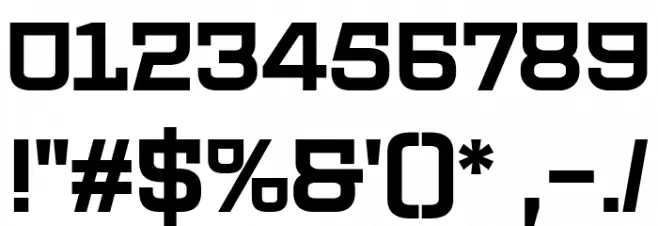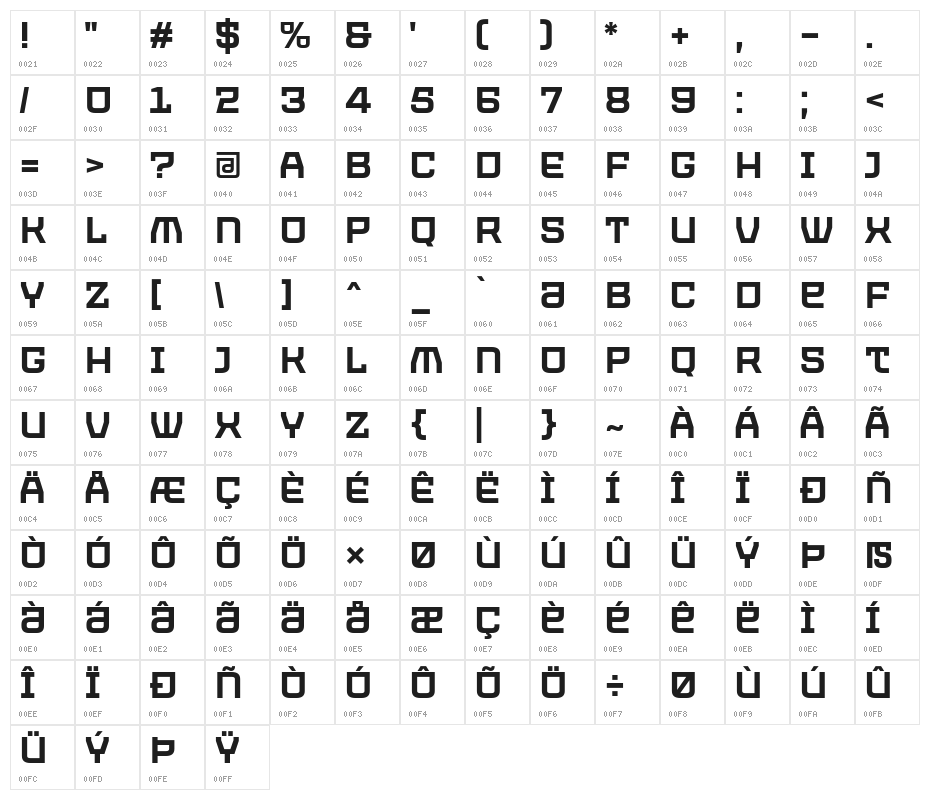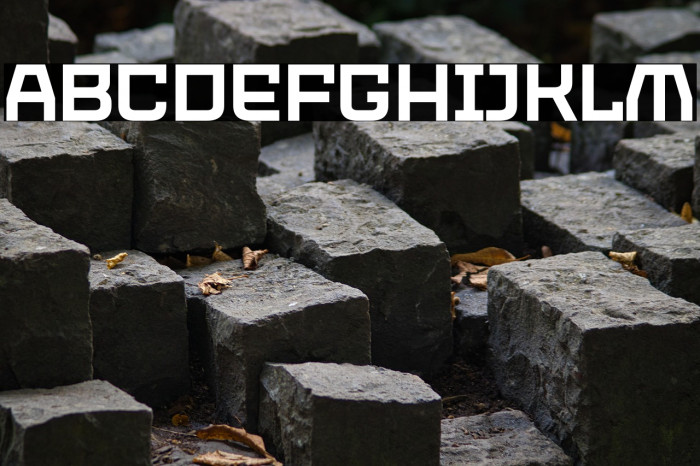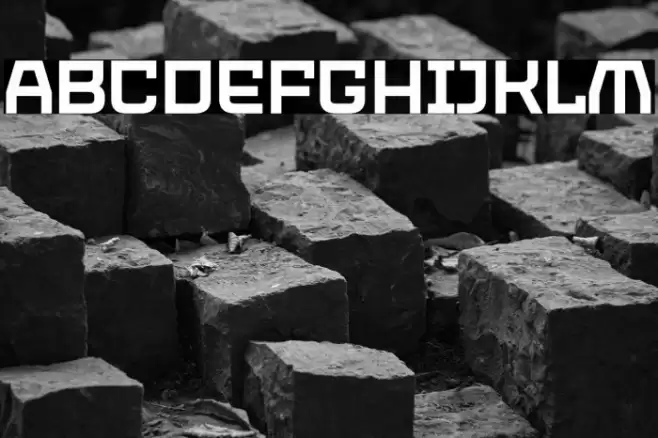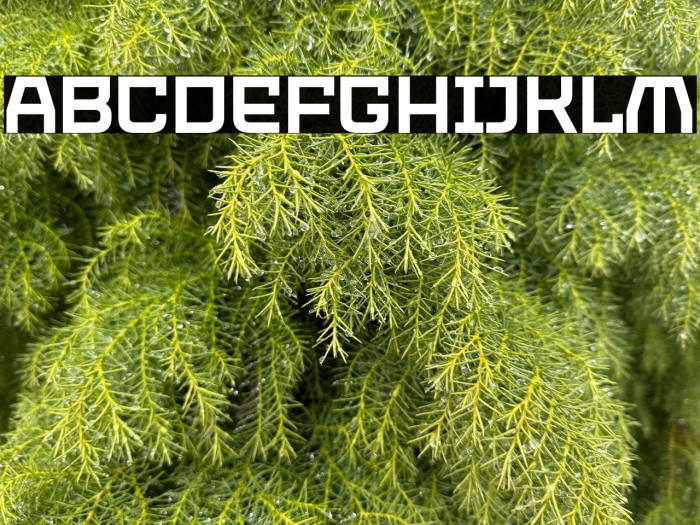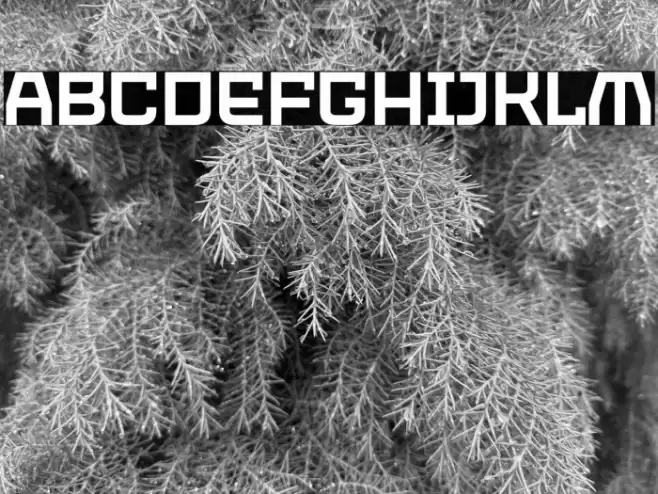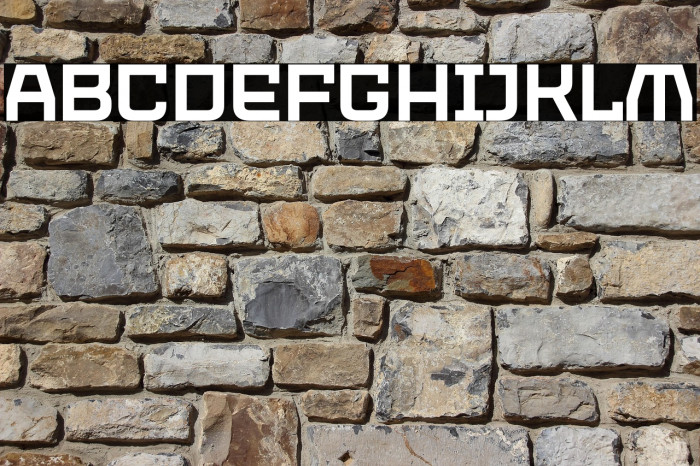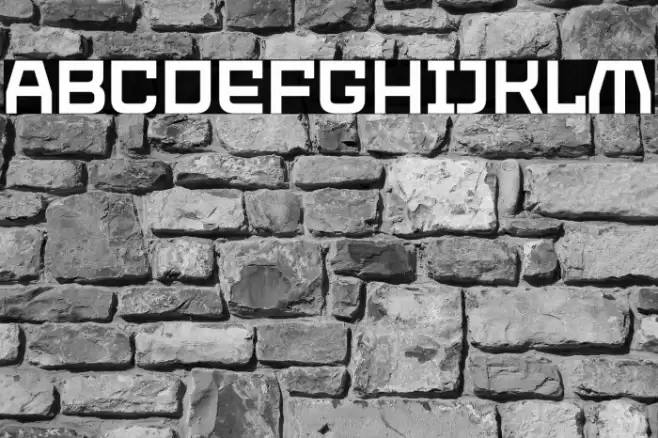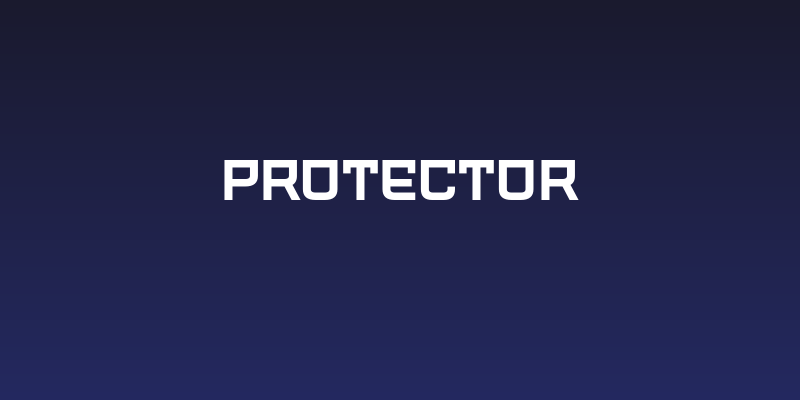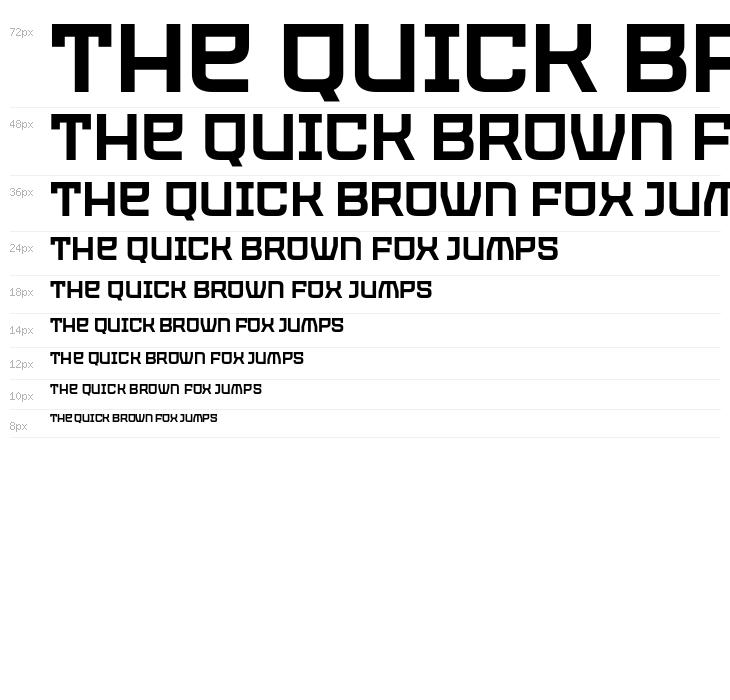
PROTECTOR Font
PROTECTOR Description
This font features a bold and geometric design, characterized by its strong, angular lines and a futuristic aesthetic. The uppercase and lowercase letters share a consistent style, with uniform stroke widths that convey a sense of stability and strength. The numerals and special characters maintain this cohesive look, making the font versatile for various applications. Its distinct, modern appearance is suitable for projects that require a bold statement or a contemporary feel.